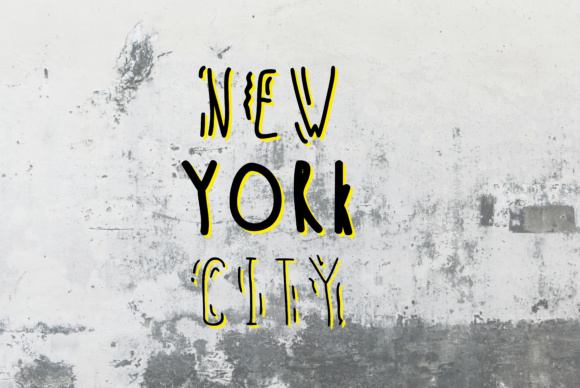
In a world where individuality and expression reign supreme, Club57 Font stands as a beacon of creativity, a tribute to the legendary Keith Haring and the vibrant energy of New York City's art scene. This captivating display font family, brought to you by GraphicsBam Fonts, is an artistic masterpiece that dances and sways with the rhythm of urban culture.
With its three distinct styles, Club57 Font grants you the freedom to mix and match marks and shapes, creating unique and eye-catching designs that reflect your artistic vision. Inspired by Keith Haring's iconic illustrations, graffiti, and artwork, this font embodies the spirit of New York's vibrant art scene, inviting you to unleash your creativity and make a statement with your designs.
Whether you're an aspiring artist looking to bring your vision to life or a seasoned designer seeking a touch of urban flair, Club57 Font is your perfect companion. Its versatility knows no bounds, making it suitable for a wide range of projects, from hand embroidery to eye-catching posters and social media graphics. Dive into the world of Club57 Font and let your creativity soar.
Embrace the energy of Club57 Font and transform your designs into captivating expressions of art. Its bold strokes and playful shapes will breathe life into your creations, adding a layer of depth and intrigue that will leave your audience spellbound.